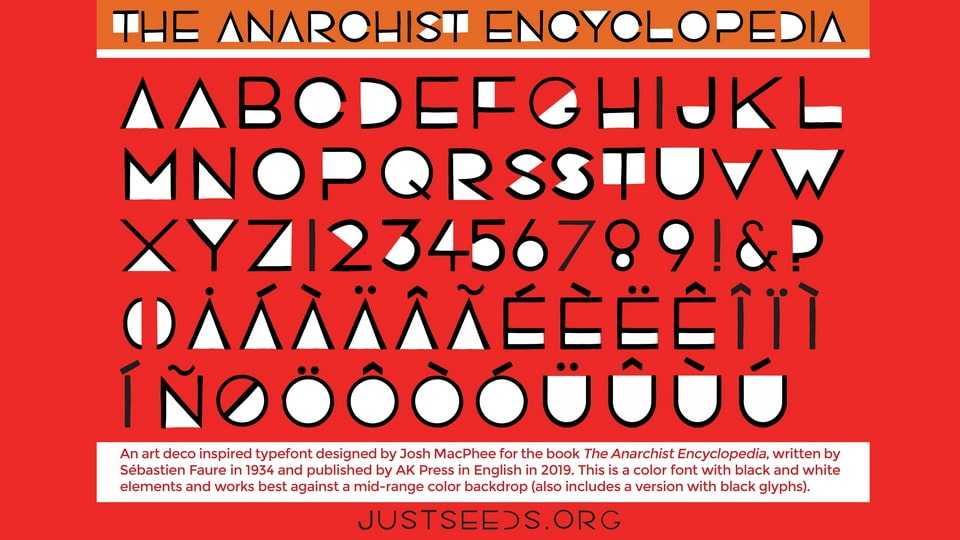
Download The Anarchist Encyclopedia font, an Art Deco inspired color typeface with black and white elements, designed by Josh MacPhee for a book of the same name, written by Sébastien Faure in 1934.